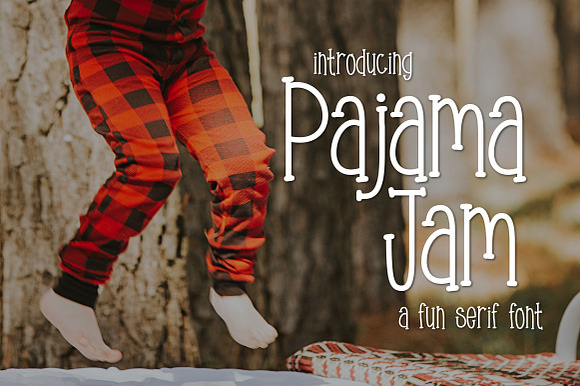
Pajama Jam A Fun Serif Font
This font is perfect to add to any project.
Pajama Jam A Fun Serif Font by Kitaleigh fits naturally into Branding, posters, packaging, typography.